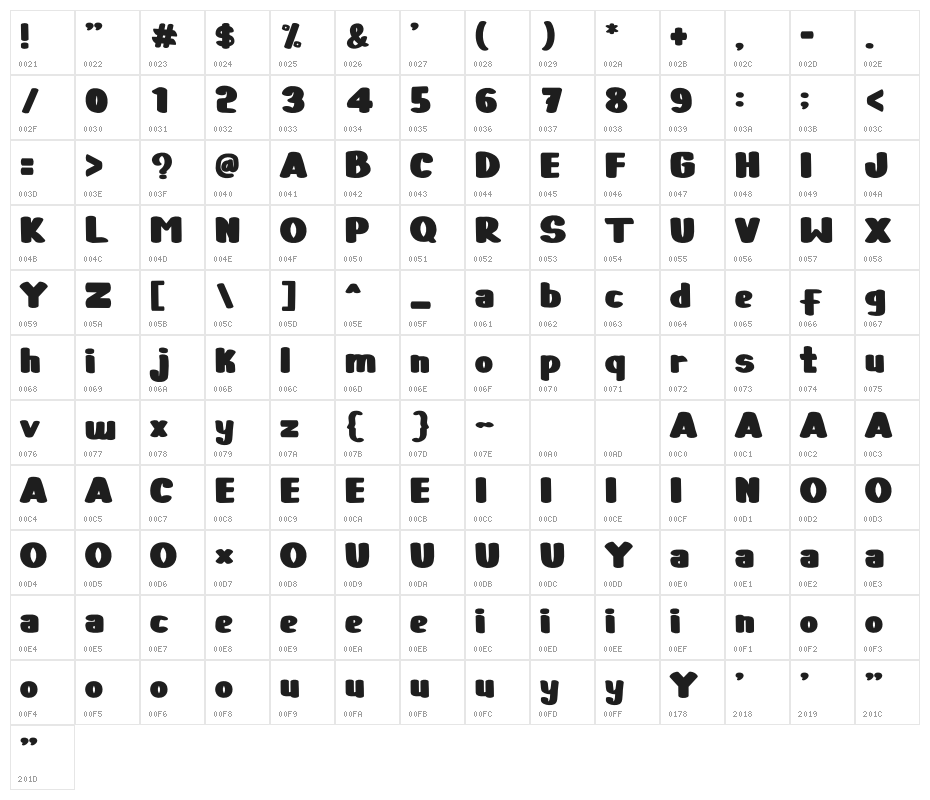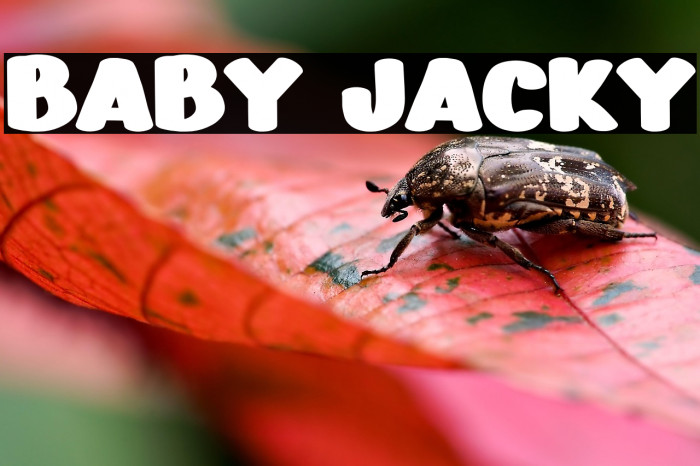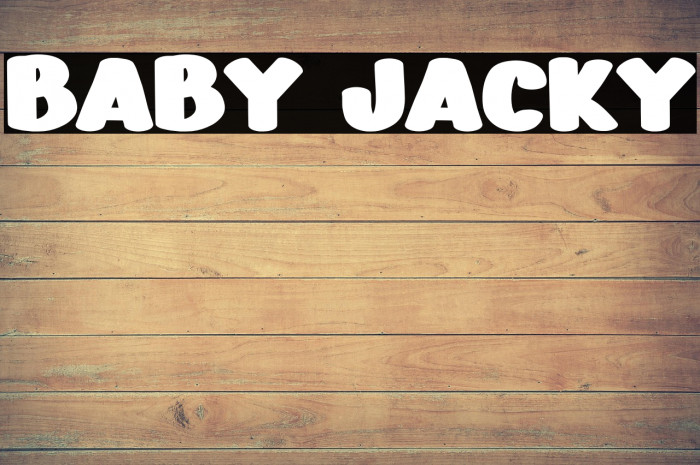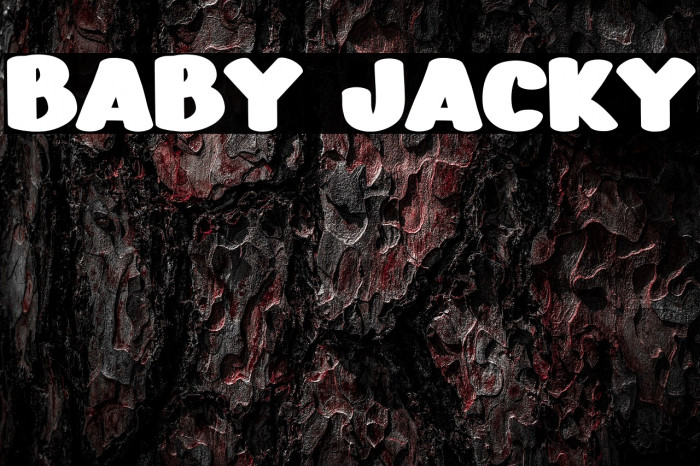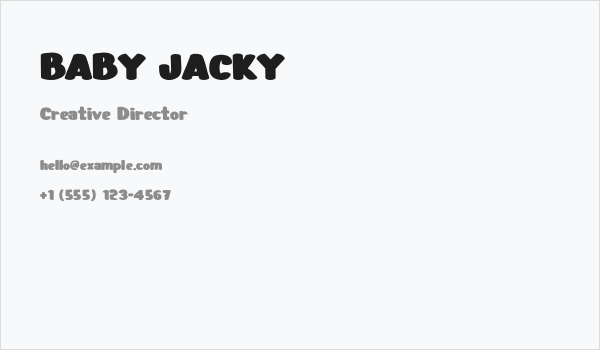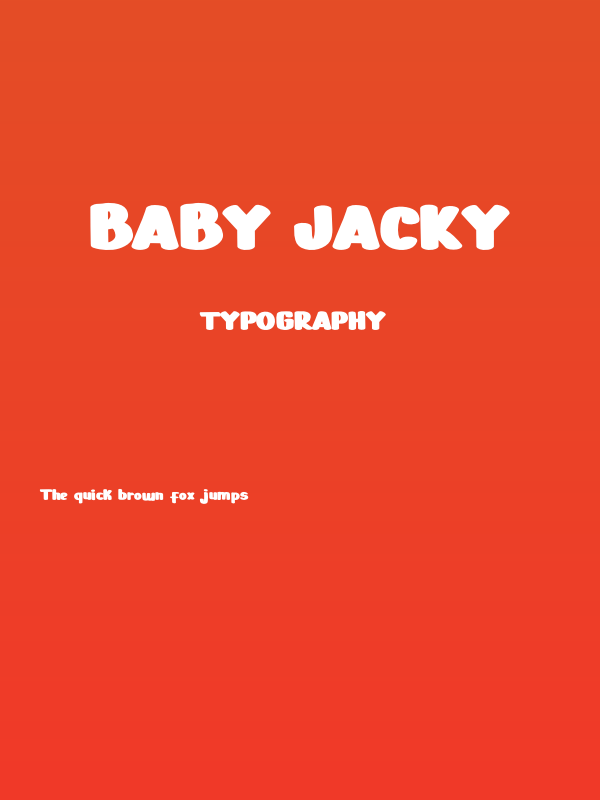
BABY JACKY Font
BABY JACKY Description
This playful and bold font features rounded edges and a chunky appearance, giving it a friendly and approachable feel. The characters are uniformly thick, with a consistent stroke width that adds to its boldness. The font's design is reminiscent of bubble letters, making it ideal for projects that require a fun and informal touch. Its readability is enhanced by the clear distinction between each character, despite the boldness. The numbers and special characters maintain the same playful style, ensuring consistency across all text elements.
| Overall Style | Playful, Fun |
| Proposed Projects | Ideal for children's books, playful branding, party invitations, and any design that requires a fun and informal touch. |